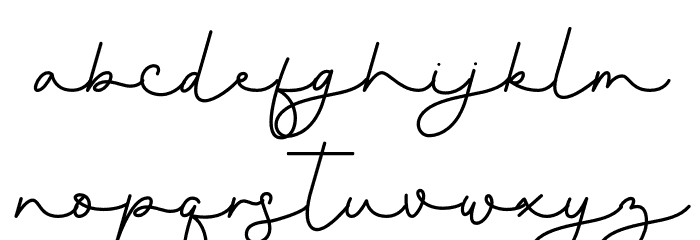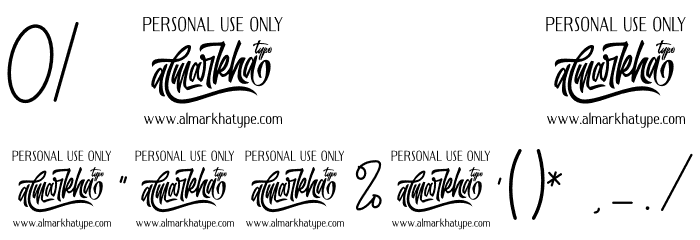
Young Evaline Font
This font features a flowing, cursive style that mimics elegant handwriting. The uppercase letters are characterized by their sweeping curves and loops, giving them a sophisticated and graceful appearance. The lowercase letters maintain a consistent flow, with smooth connections between each character, enhancing the script-like quality. The numerals and special characters are designed to complement the overall aesthetic, maintaining the same fluidity and elegance. This font is ideal for projects that require a personal touch, such as invitations, greeting cards, or branding materials. Its delicate and artistic style makes it perfect for conveying a sense of elegance and refinement.
A flowing, cursive font with elegant, script-like characteristics.
- Font: Young Evaline
- Proposed Projects: Ideal for wedding invitations, greeting cards, branding, and personal stationery.
- Category: Script
- Overall Style: Elegant, Handwritten
- Use Case: Headlines, Invitations, Branding